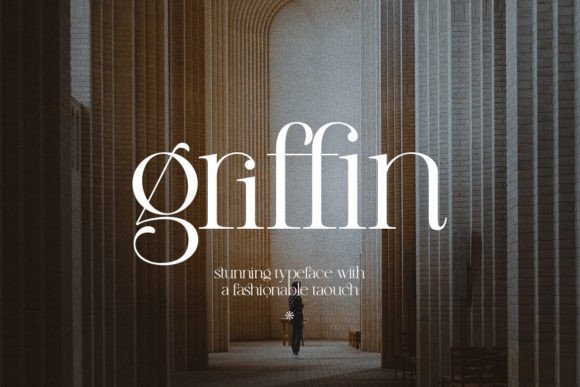
Introducing Griffin Font, the epitome of chic and elegance in the world of typography. This stunning display modern serif is meticulously crafted to add a touch of sophistication to your projects. Whether you're designing for a wedding, fashion, or lifestyle theme, Griffin Font is the ultimate choice that will captivate your audience.
Created by the talented team at dealitastudio, Griffin Font is a true masterpiece that embodies the essence of luxury and style. Its beautiful contrast and exquisite details make it the perfect companion for any design endeavor, from creating captivating logos to designing eye-catching titles and magazines.
When it comes to wedding videos, Griffin Font takes center stage as the best font choice in the market. Its graceful curves and timeless appeal will elevate your videos to new heights, leaving a lasting impression on your viewers. Every word written in Griffin Font exudes romance, elegance, and sophistication, making it the perfect match for capturing the essence of love and celebration.
But Griffin Font's versatility doesn't end there. Its allure extends to a wide range of projects, allowing you to create stunning designs that exude luxury and refinement. Imagine adorning your fashion brand's logo with the timeless beauty of Griffin Font, instantly elevating its appeal and making a powerful statement. With this font, your designs will effortlessly stand out from the crowd and leave a lasting impression on your audience.
One of the most remarkable aspects of Griffin Font is its ability to evoke emotions and create a connection with your audience. Its enchanting presence on your designs will evoke feelings of admiration, sophistication, and allure. Your content will resonate with your viewers on a deeper level, leaving them mesmerized and eager to explore more.